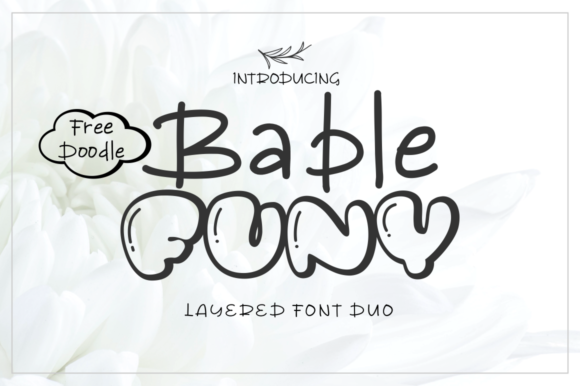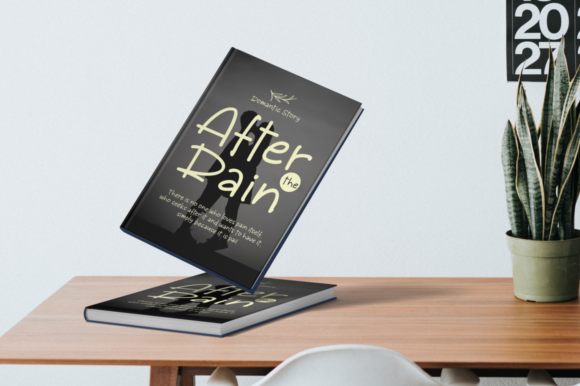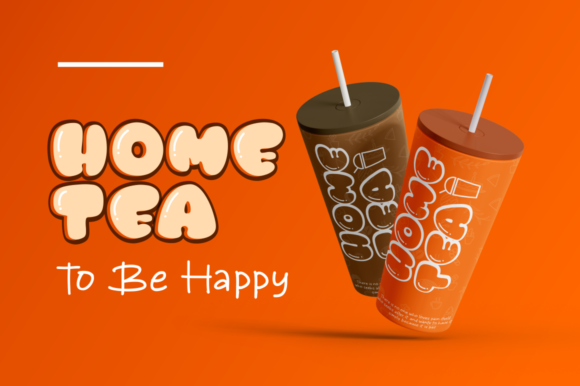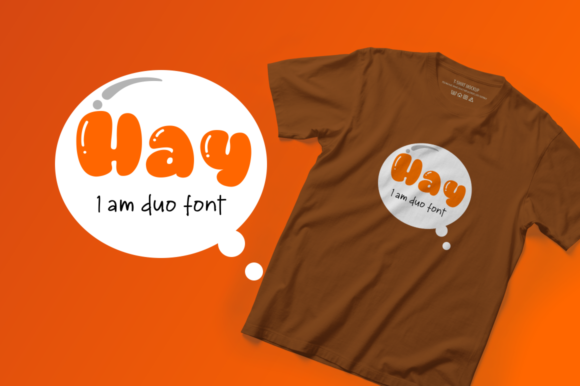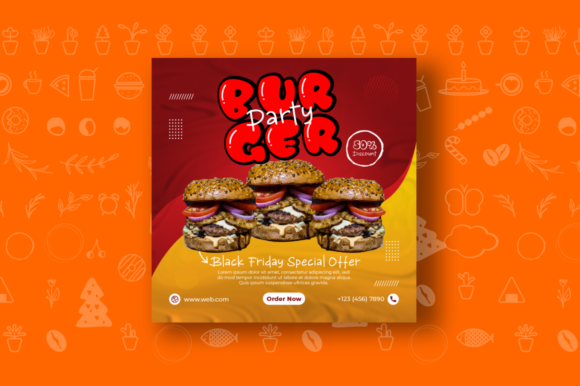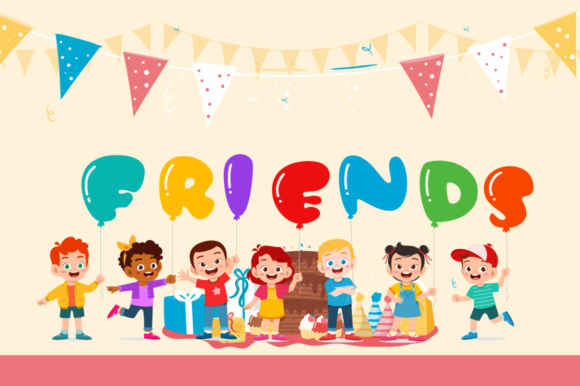
Bable Funy Font: The Perfect Addition to Your Children’s Design Projects
Are you a designer or crafter looking for a font that will make your children’s related designs stand out? Look no further than Bable Funy Font! This bubbly, childish, and cute display font is the perfect addition to any project aimed at kids. In this article, we’ll take a closer look at Bable Funy Font, its features, and how you can use it to create engaging and fun designs for children.
What is Bable Funy Font?
Bable Funy Font is a modern and playful display font designed specifically for children’s designs. Its bubbly and childish style makes it perfect for projects such as children’s books, educational materials, posters, and crafts. The font is carefully crafted to evoke a sense of fun and playfulness, making it an excellent choice for designers and crafters who want to create engaging and interactive designs for kids.
Key Features of Bable Funy Font
So, what makes Bable Funy Font so special? Here are some of its key features:
- Bubbly and Childish Style: Bable Funy Font has a unique and playful style that is sure to capture the attention of kids. Its bubbly and childish design makes it perfect for projects aimed at young children.
- Modern and Playful: The font has a modern and playful feel to it, making it perfect for designers and crafters who want to create fresh and engaging designs.
- Display Font: Bable Funy Font is a display font, which means it’s designed to be used in large sizes, making it perfect for headings, titles, and posters.
- Easy to Read: Despite its playful style, Bable Funy Font is easy to read, making it perfect for use in children’s books, educational materials, and other projects where readability is important.
How to Use Bable Funy Font in Your Designs
Now that we’ve covered the features of Bable Funy Font, let’s take a look at how you can use it in your designs:
- Children’s Books: Bable Funy Font is perfect for use in children’s books, where its playful style can help bring stories to life.
- Educational Materials: The font’s easy-to-read style makes it perfect for use in educational materials, such as worksheets, activity sheets, and posters.
- Posters and Flyers: Bable Funy Font is perfect for use in posters and flyers aimed at kids, where its bold and playful style can help grab attention.
- Crafts and DIY Projects: The font can also be used in crafts and DIY projects, such as making cards, gift tags, and other paper crafts.
Tips for Using Bable Funy Font Effectively
Here are some tips for using Bable Funy Font effectively in your designs:
- Use it in Large Sizes: Bable Funy Font is designed to be used in large sizes, so make sure to use it in headings, titles, and posters.
- Pair it with Other Fonts: The font can be paired with other fonts to create a unique and interesting design. Try pairing it with a sans-serif font for a contrasting look.
- Experiment with Colors: Bable Funy Font looks great in bright and bold colors, so don’t be afraid to experiment with different colors to create a fun and playful design.
In conclusion, Bable Funy Font is a fantastic addition to any designer’s or crafter’s toolkit. Its bubbly, childish, and cute style makes it perfect for projects aimed at kids. With its modern and playful feel, easy-to-read style, and versatility, Bable Funy Font is sure to become a favorite font for designers and crafters who work with children’s designs. So why not give it a try and see how it can help bring your designs to life?